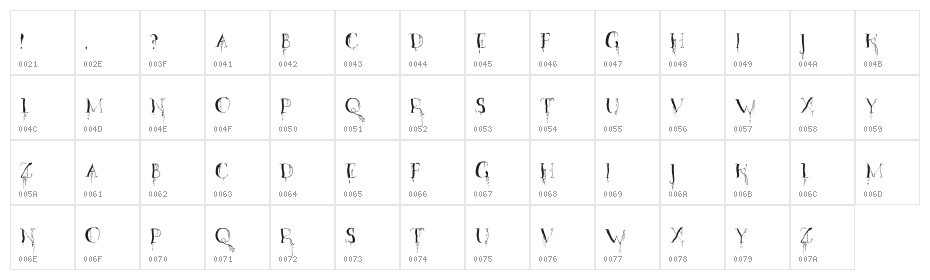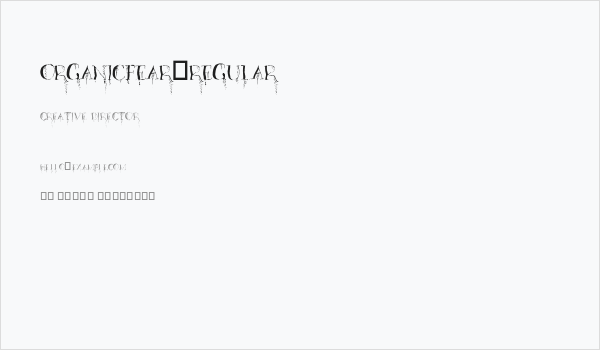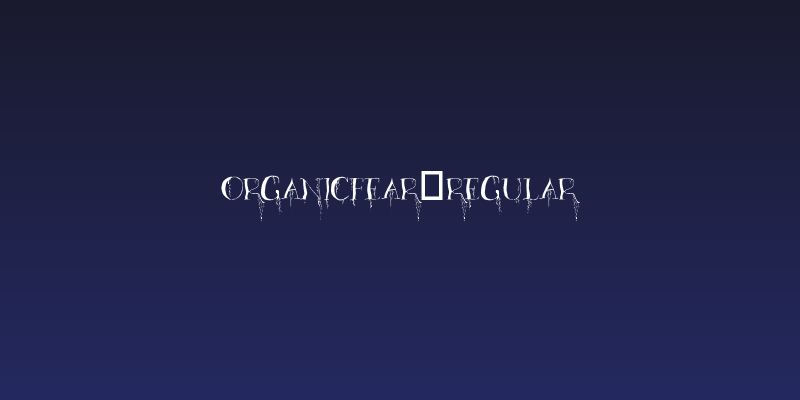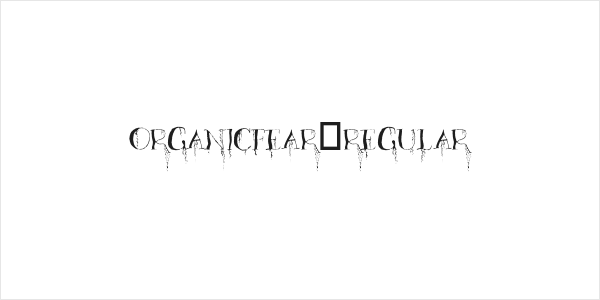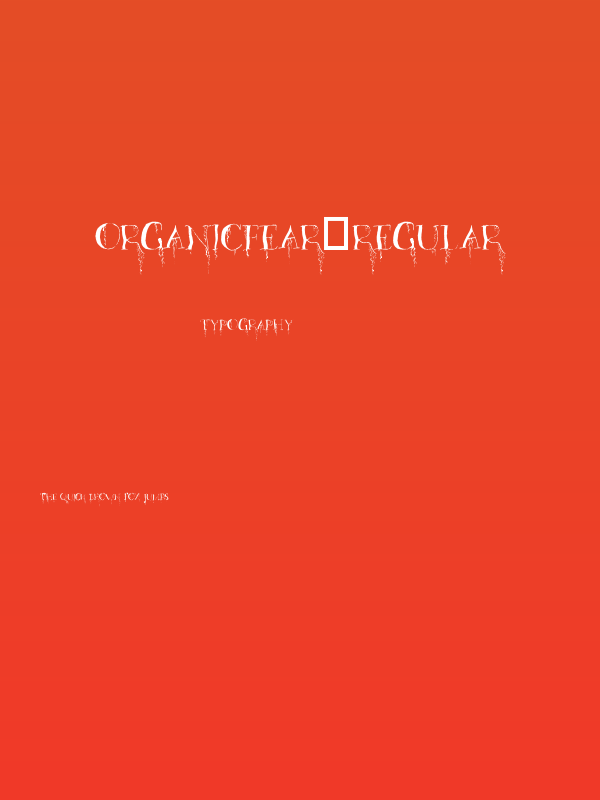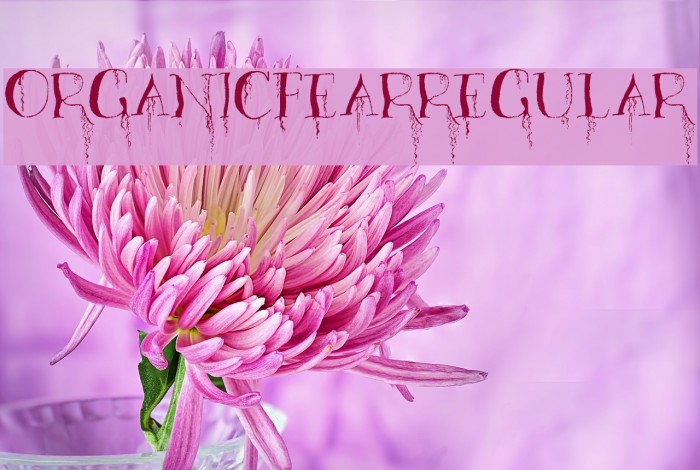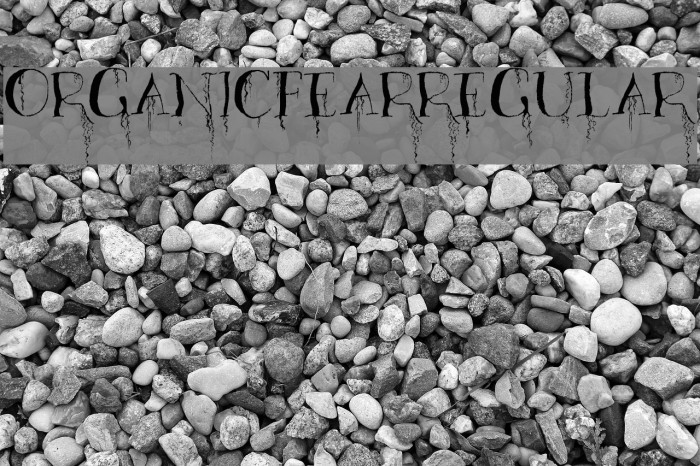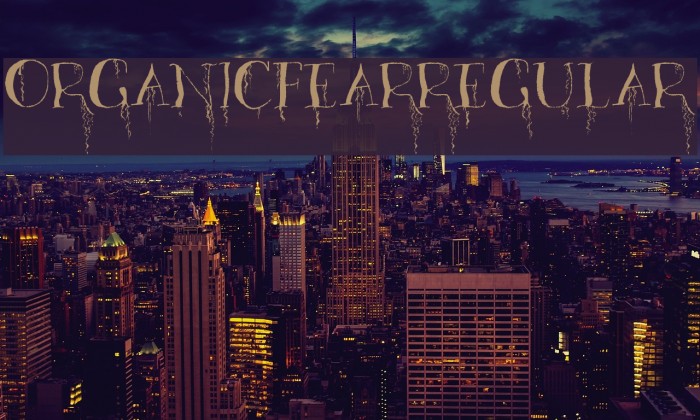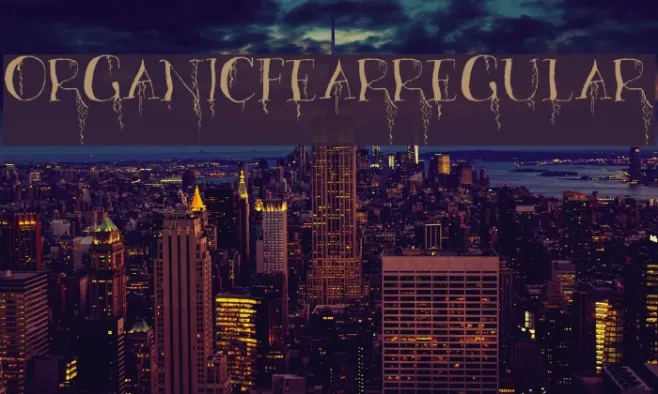
OrganicFear-Regular Font
OrganicFear-Regular Description
This font features a haunting and organic design, with letters that appear to be dripping or growing like roots or vines. The uppercase and lowercase letters maintain a consistent style, with jagged edges and irregular strokes that give a sense of decay or erosion. The overall appearance is both eerie and artistic, making it suitable for themes related to horror, nature, or the supernatural. The font's unique texture and intricate details make it stand out, while still maintaining readability.
| Proposed Projects | Ideal for horror movie posters, Halloween event invitations, or any project requiring a spooky, natural aesthetic. |